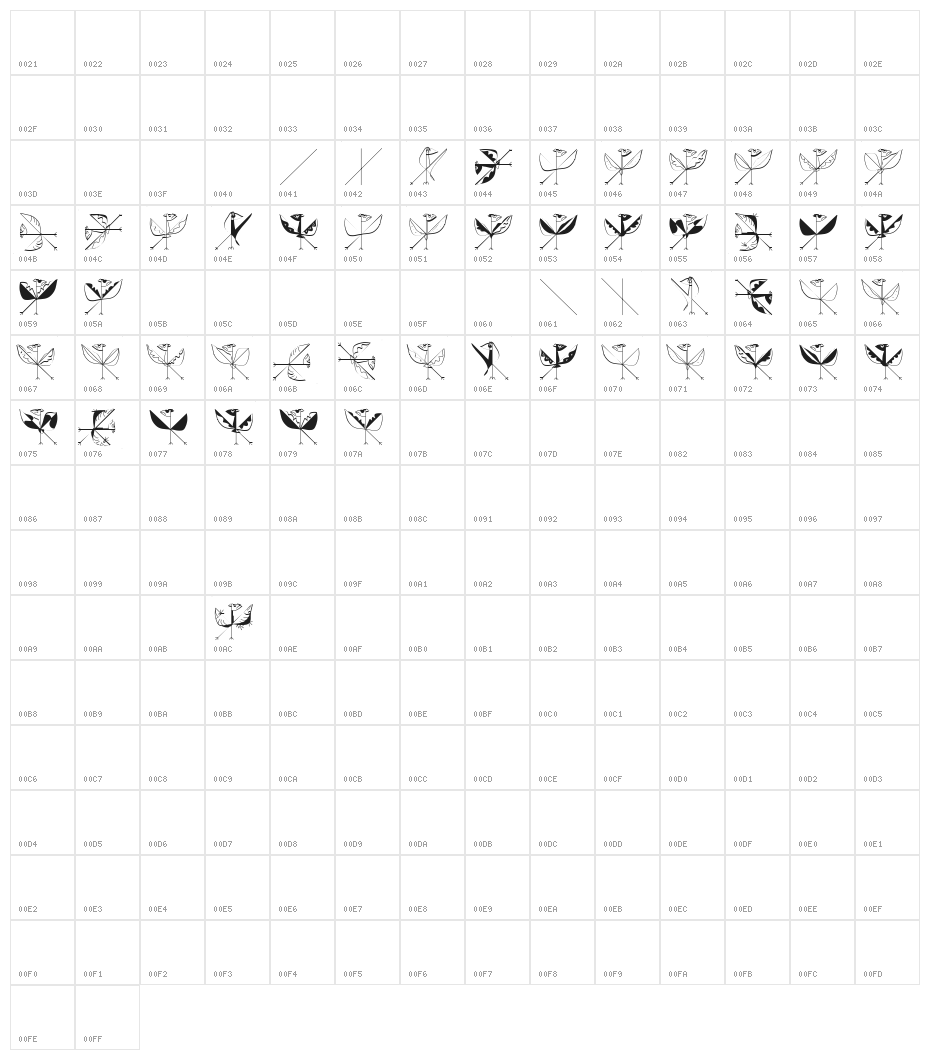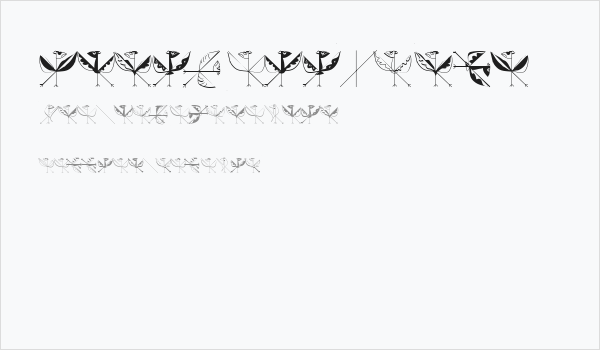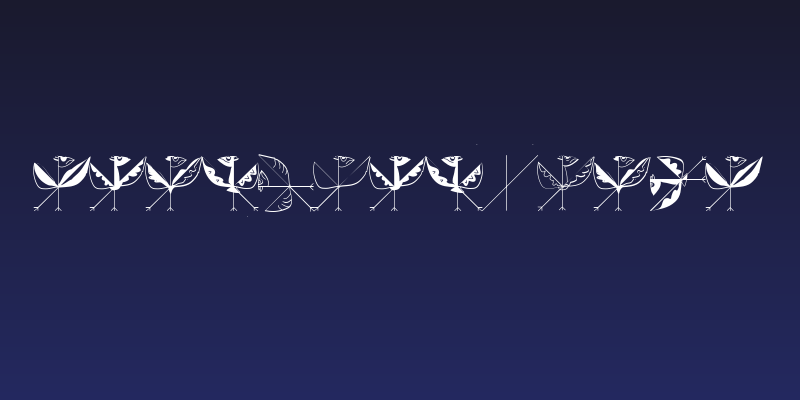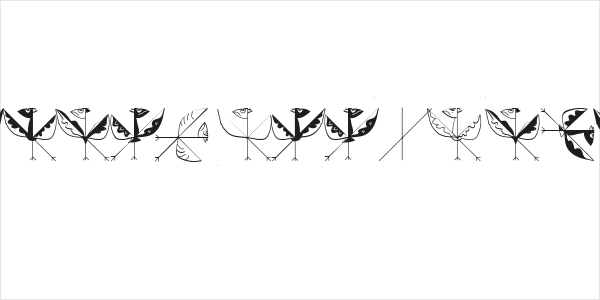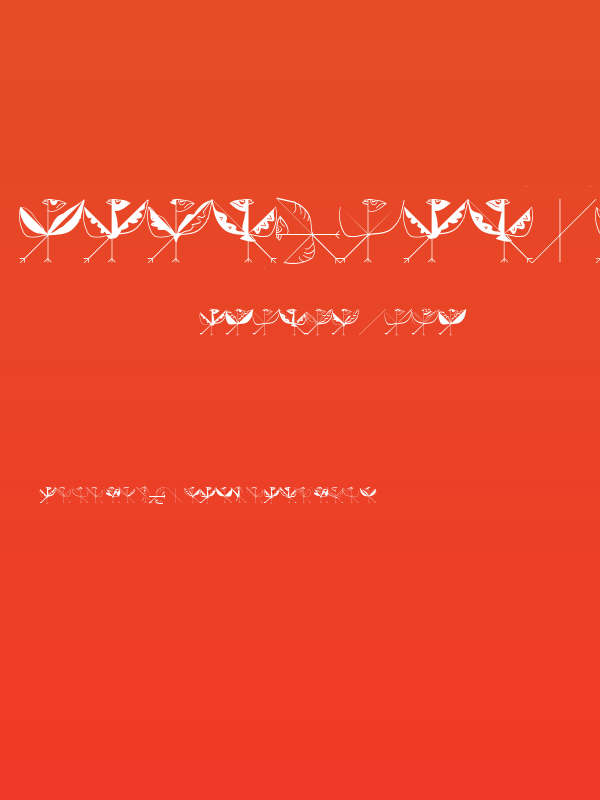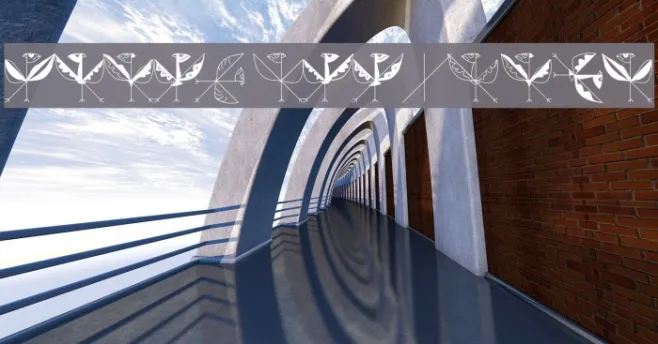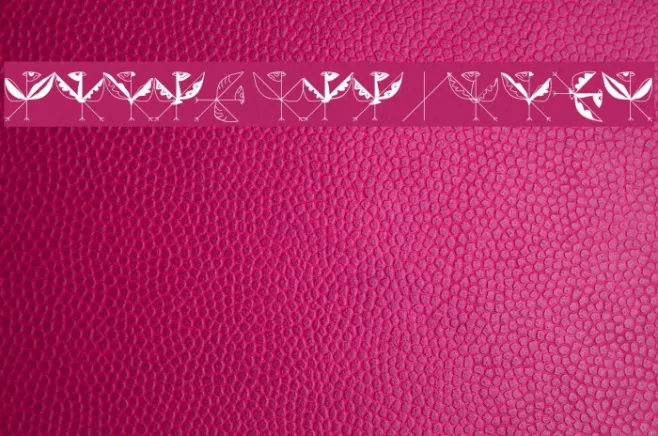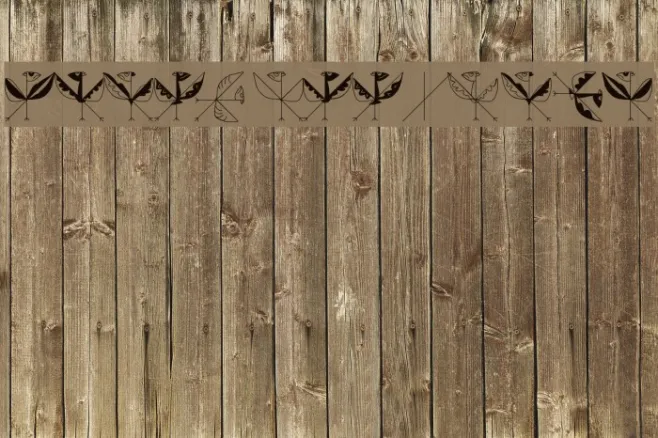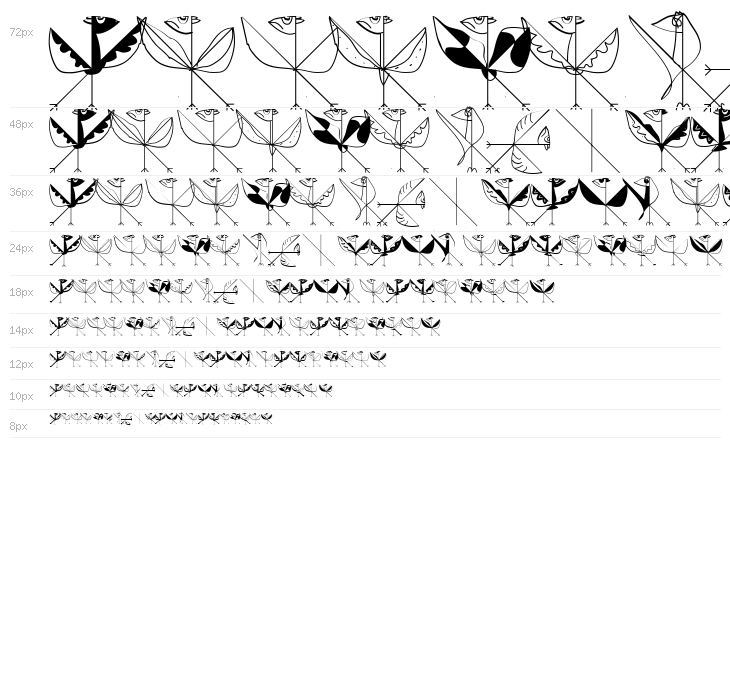
StrokeToBirds Font
StrokeToBirds Description
This font is a whimsical and artistic representation where each character is creatively transformed into a bird-like figure. The design features a playful and imaginative style, with each letter and number incorporating elements such as wings, beaks, and eyes, giving the appearance of birds in various poses. The characters are constructed with a mix of solid and outlined strokes, adding a dynamic and lively feel. The font is highly decorative, making it suitable for projects that require a unique and eye-catching aesthetic. The overall look is both charming and distinctive, capturing the essence of flight and nature in a typographic form.